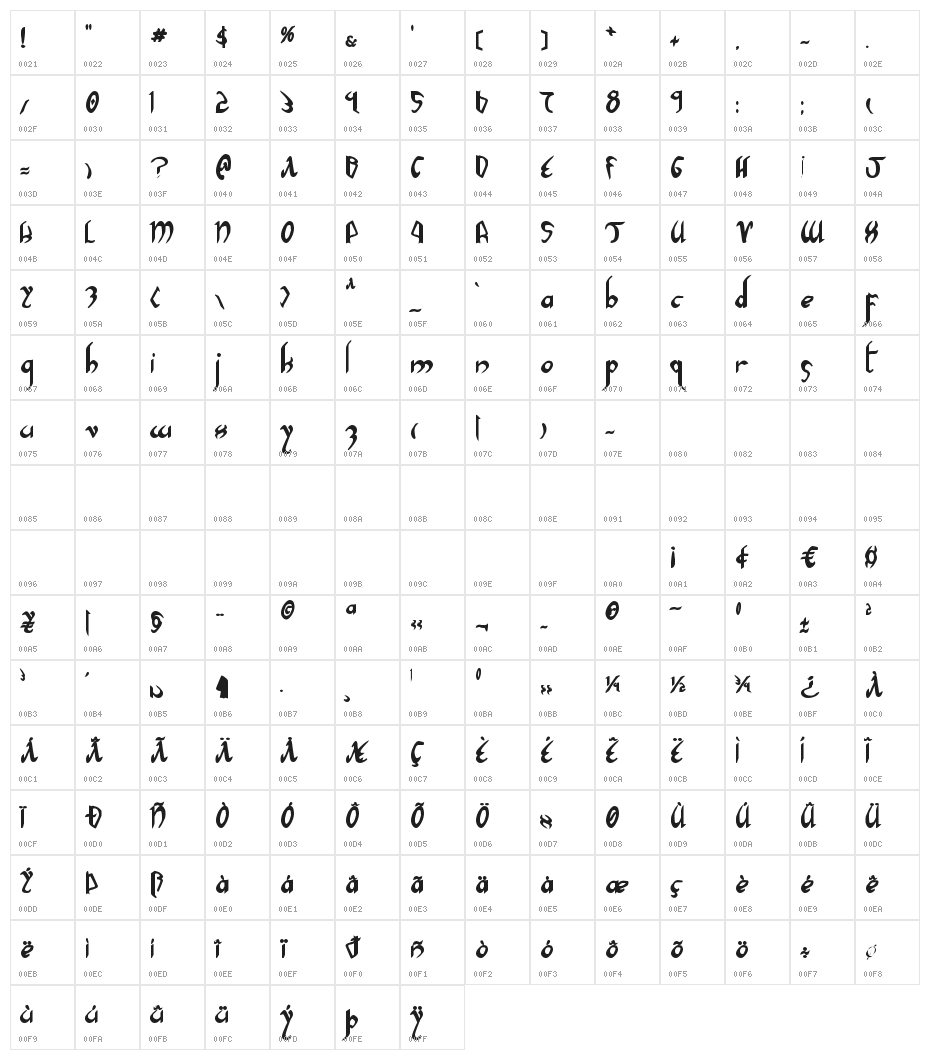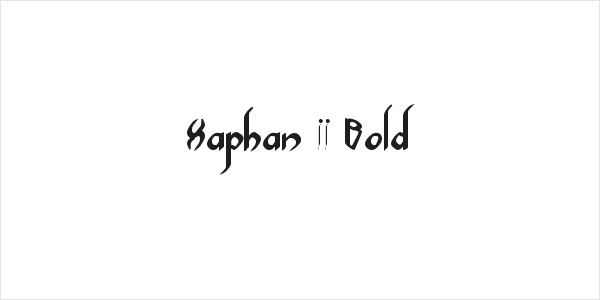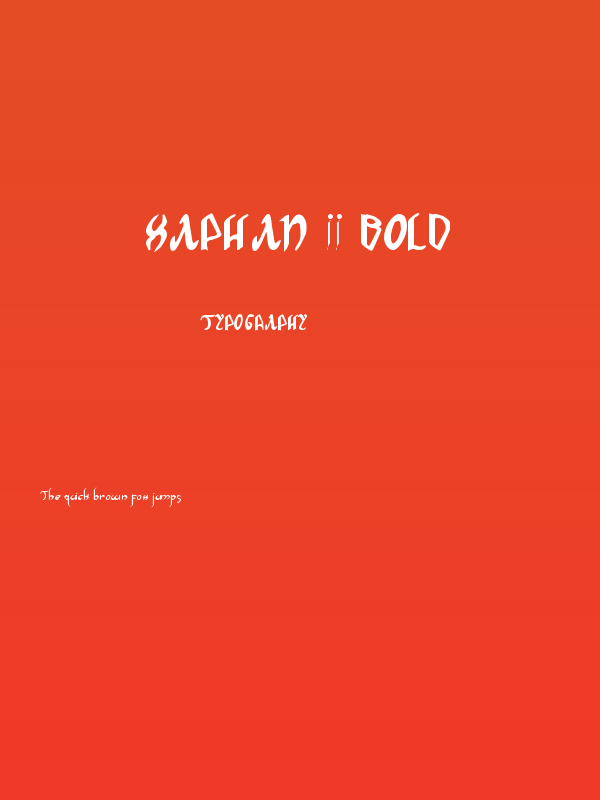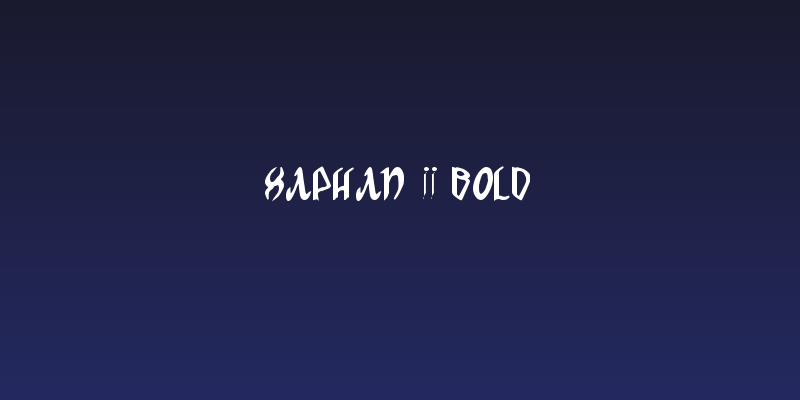
Xaphan II Bold Font
Xaphan II Bold Description
This font features a bold and dramatic style with sharp, angular lines and a gothic influence. The uppercase letters have a strong presence with exaggerated curves and pointed edges, while the lowercase letters maintain a consistent style with a slightly more subdued appearance. Numbers and special characters follow the same bold and distinctive design, making them stand out. The overall aesthetic is reminiscent of medieval or fantasy themes, suitable for creating a striking visual impact.
XAPHAN-II-BOLD UPPERCASE
XAPHAN-II-BOLD LOWERCASE
XAPHAN-II-BOLD OTHER CHARS